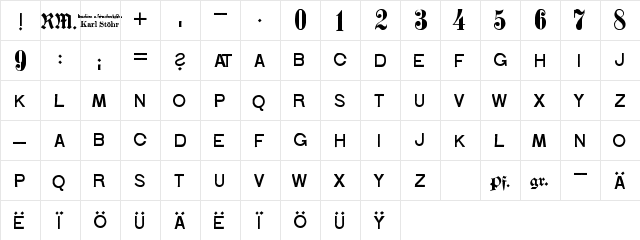
stoehr_numbers Regular
| Designer | Lukas Krakora |
Design Context for stoehr_numbers Typeface
stoehr_numbers takes a measured approach to typography — its balanced proportions and neutral character make it a reliable workhorse for both digital and print work.